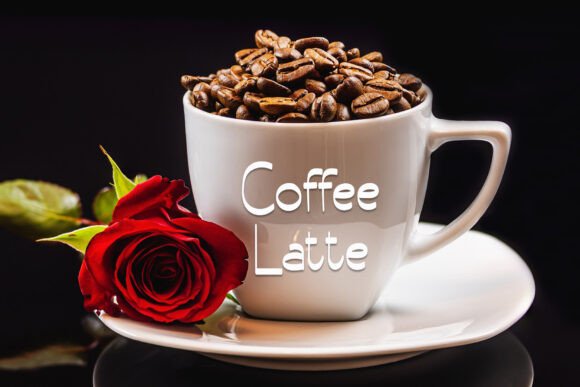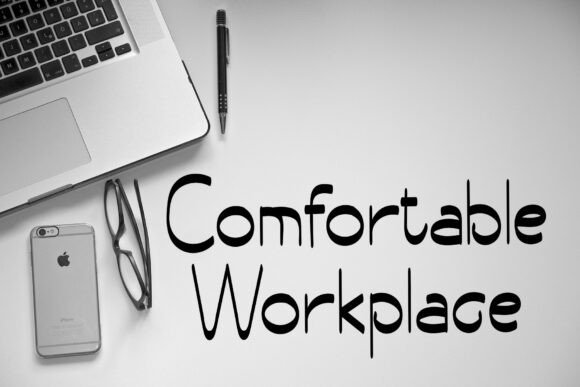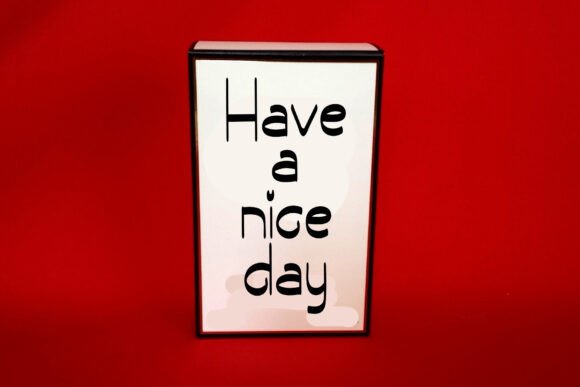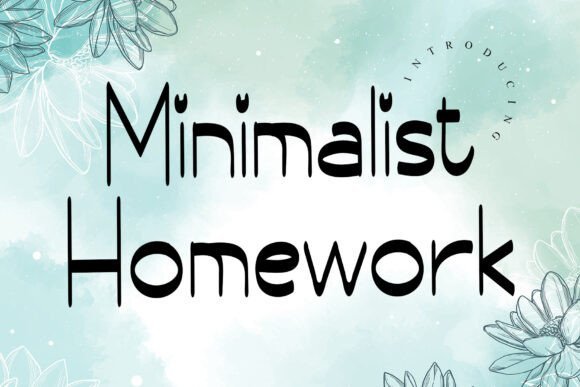
Introduction to Minimalist Homework Font
Minimalist Homework is a unique and elegant font specially designed just for you.
This font is made with a professional hand touch and is perfect for your projects This font is very suitable for use in your work projects, all greeting cards from wedding invitation cards, birthdays, all types of parties.
Key Features of Minimalist Homework Font
Why Choose Minimalist Homework Font?
Minimalist Homework Font offers exceptional quality and versatility, making it a valuable addition to your design toolkit. Whether you’re creating for personal projects or commercial use, Minimalist Homework Font delivers professional results.